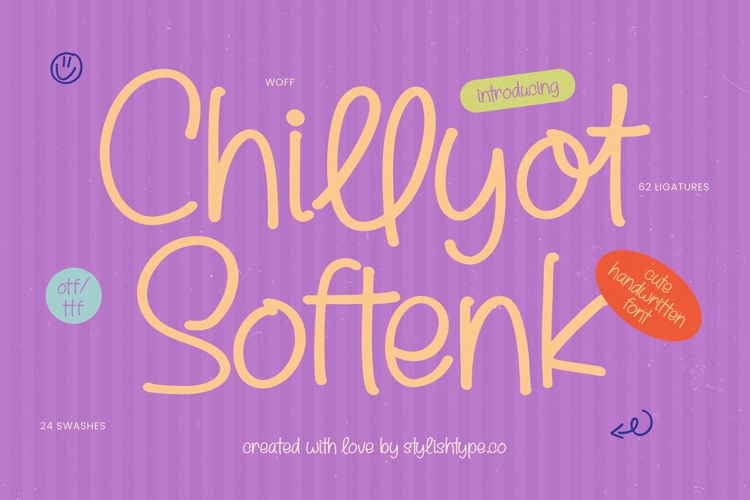
Chillyot Softenk - Cute Handwritten Font
Chillyot Softenk is a delightful addition to any designer's toolkit, offering a whimsical and heartfelt touch that transforms ordinary text into a captivating visual narrative. This font radiates pure joy and a sense of carefree creativity, making every word feel like a invitation into a world of imagination.
Inspired by the effortless beauty of hand-drawn sketches and spontaneous journal entries, this typeface captures the warmth of human touch in every stroke. It evokes the feeling of a sunny afternoon spent creating, where every loop and curve was crafted to bring a sense of comfort and nostalgic charm to your projects.